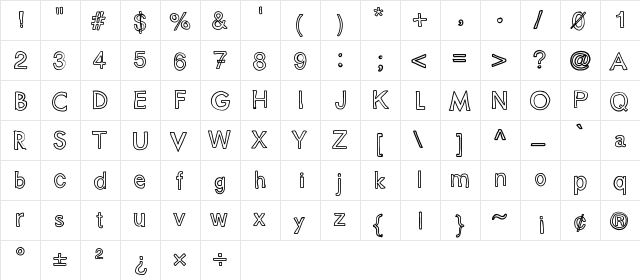
JustColesBlockOutlines Medium
Design Context for JustColesBlockOutlines
JustColesBlockOutlines is built around its visual character rather than neutral utility - its distinctive forms are designed to make an impression at display sizes.
Font Pairing: Pair with a clean neutral sans-serif for body copy to let JustColesBlockOutlines's character lead without overwhelming the composition.
Pro Tip: Use JustColesBlockOutlines exclusively at display sizes - it was designed to be seen, not read at length. Let a neutral companion handle body copy.